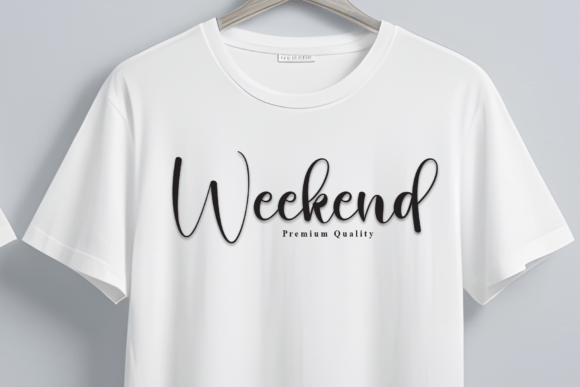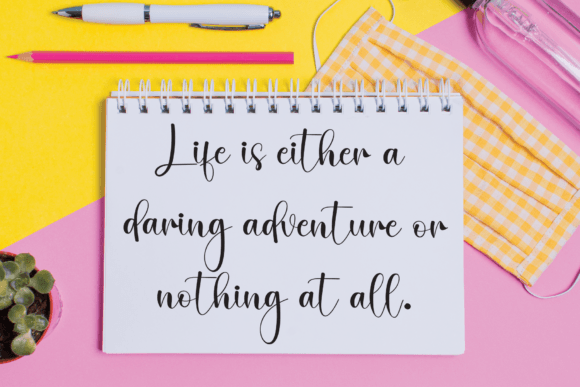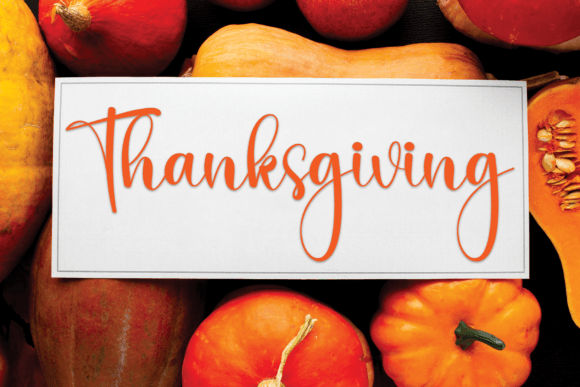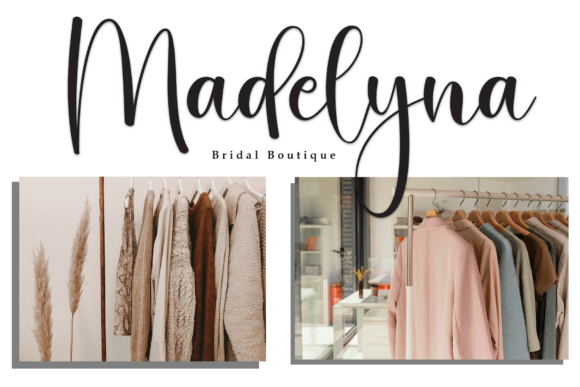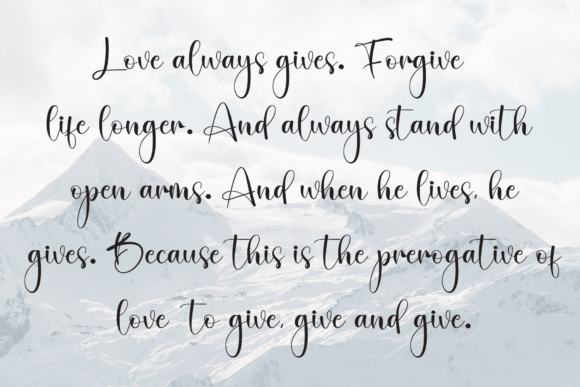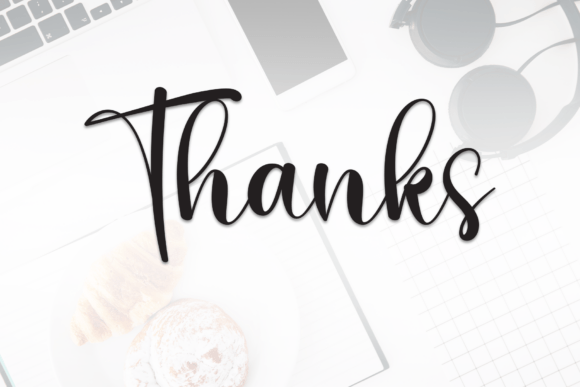
Introducing Breakday Font: Elevate Your Designs with Elegance and Sophistication
In the world of typography, a font can make or break the aesthetic of a design. For those seeking a touch of elegance and sophistication, Breakday Font is an exceptional choice. This stylish and incredibly elegant script font is perfect for a variety of design projects, including wedding invitations, thank you cards, quotes, greeting cards, logos, business cards, and more.
The Beauty of Breakday Font
Breakday Font boasts a unique and captivating style that instantly elevates any design. Its elegant script letters are carefully crafted to provide a handwritten touch, making it ideal for designs that require a personal and sophisticated feel. The font’s versatility allows it to seamlessly integrate into various design projects, from formal events to everyday branding.
Wedding planners, designers, and crafters will adore Breakday Font for its romantic and whimsical feel. It’s perfect for creating stunning wedding invitations, save-the-date cards, and other event-related designs. The font’s elegant style ensures that your designs will stand out and leave a lasting impression on your guests.
Enhance Your Brand with Breakday Font
Business owners and marketers, take note! Breakday Font can also be used to create a cohesive and sophisticated brand identity. Its unique script style adds a touch of personality to logos, business cards, and other marketing materials, helping your brand to stand out in a crowded market.
Key Features of Breakday Font
- Elegant Script Style: Breakday Font features a beautiful, handwritten script style that’s perfect for designs that require a personal touch.
- Versatile: Use Breakday Font for a variety of design projects, from wedding invitations to business branding.
- Easy to Read: Despite its elegant style, Breakday Font is easy to read, making it perfect for body text and captions.
- Scalable: Breakday Font is designed to look great at any size, from small captions to large headlines.
Tips for Using Breakday Font
To get the most out of Breakday Font, here are a few tips to keep in mind:
- Pair with a Simple Font: Breakday Font’s elegant style can be overwhelming if paired with another ornate font. Pair it with a simple font to create a beautiful contrast.
- Use for Headlines and Titles: Breakday Font is perfect for headlines and titles, where its elegant style can shine.
- Experiment with Colors: Breakday Font looks great in a variety of colors, from classic black and white to bold and bright hues.
Breakday Font is a stunning and elegant script font that’s perfect for designers and crafters seeking to add a touch of sophistication to their designs. Its versatility, readability, and scalability make it an excellent choice for a wide range of design projects. Whether you’re creating wedding invitations, business branding, or simply looking for a beautiful font to enhance your designs, Breakday Font is an exceptional choice.